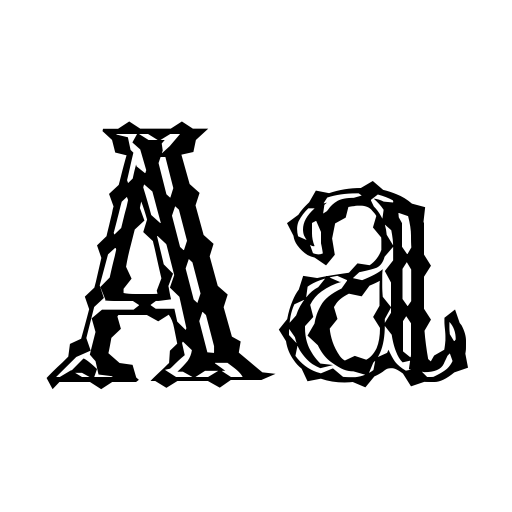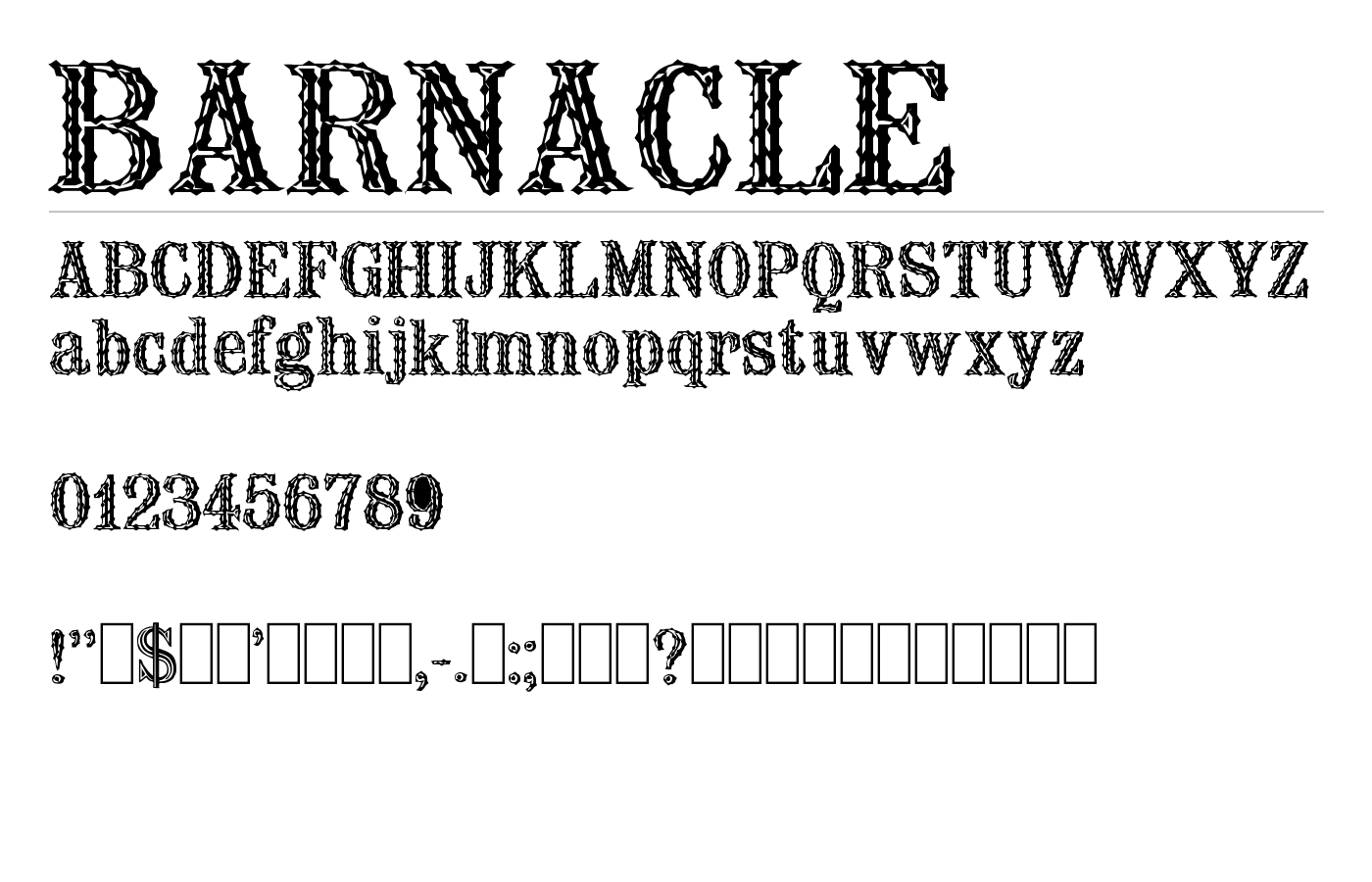
Barnacle is a decorative serif font with a vintage, textured appearance that evokes an aged, nautical feel reminiscent of weathered wood or sea barnacles. Its medium weight and moderate contrast combine with sharp, intricate serifs and detailed letterforms, making it ideal for eye-catching headlines, logos, and themed packaging where a rustic, maritime character is desired. This font works best in designs that need a bold, distinctive style with a handcrafted, historic vibe.
BARNACLE Font
About BARNACLE Font